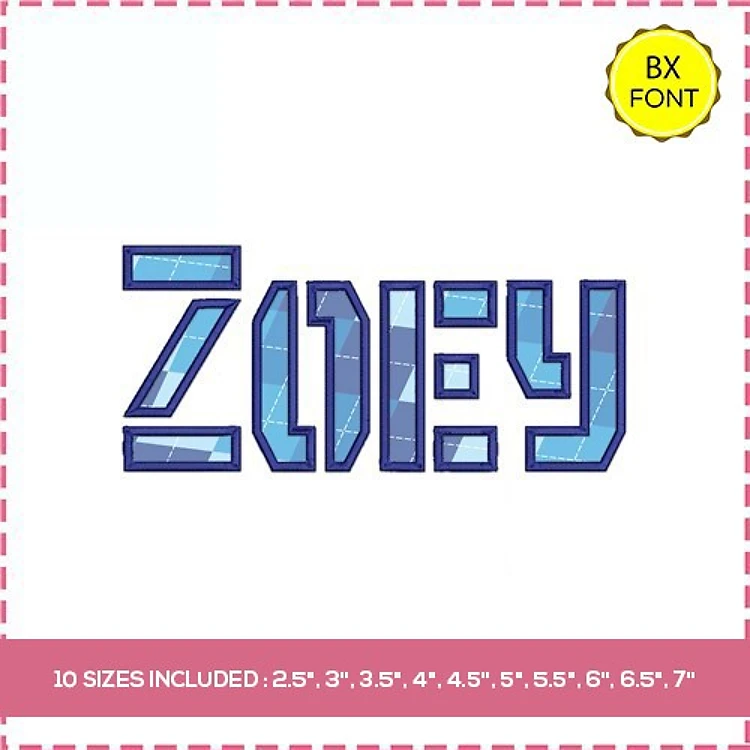
Zoey Font Embroidery Font - Bold Block Outline Style - 10 Sizes Included - BX font by Maya Kreations and other embroidery fonts available at EmbroideryDesigns.com.
Maya Kreations is happy to present Zoey Font Embroidery Font - Bold Block Outline Style - 10 Sizes Included - BX font machine embroidery font which has Bold block machine embroidery font suited for customized jackets and tote bags. The outline technique adds depth, and it's available in BX font and Embrilliance formats. included. If you would like to view more embroidery fonts and alphabets please search our embroidery fonts page.
Zoey Font Embroidery Font - Bold Block Outline Style - 10 Sizes Included - BX font